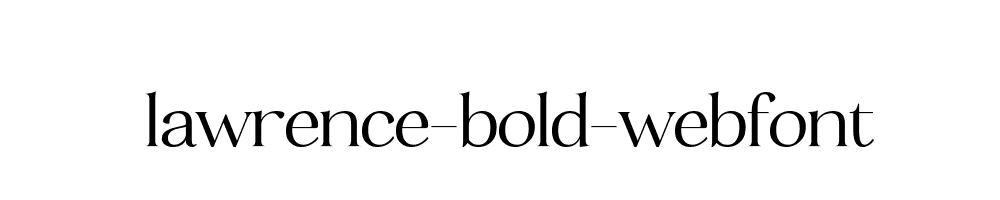
lawrence-bold-webfont
About lawrence-bold-webfont
The Lawrence-Bold-Webfont, designed by an unknown creator, captivates with its strong structure and bold weight. The font’s eye-catching features include a clear apex and smooth arc, giving it a sense of elegance and sophistication. The ascender and descender are well-balanced, while the closed counter adds a touch of modernity to the overall design. The font also boasts a subtle serif and a distinct stem, adding to its overall appeal. With its expressive yet friendly appearance, Lawrence-Bold-Webfont falls into the category of Elegant – Rugged, making it perfect for projects that require a touch of class and personality. Whether used for headlines or body text, this font is sure to leave a lasting impression on anyone who encounters it.